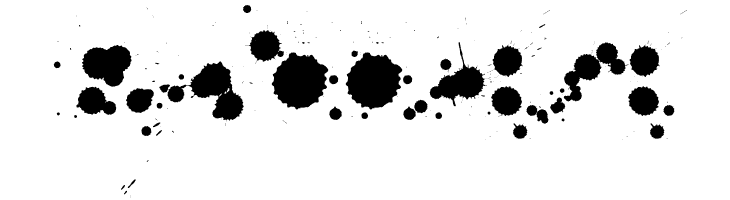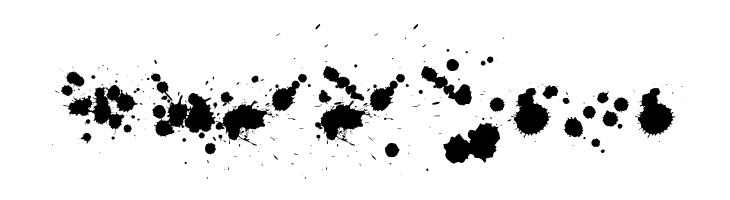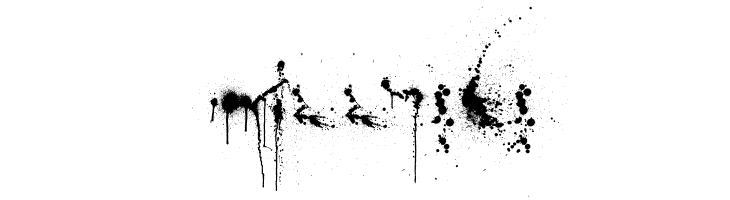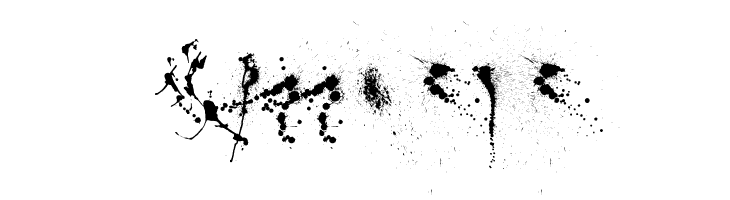
An artistic font with ink splatter-like characters, offering a bold and dynamic appearance.
A bold, splatter-style font with an artistic and chaotic appearance.
An abstract, ink-splatter inspired decorative font with a chaotic and artistic style.
An abstract, graffiti-like font with ink splatter aesthetics.